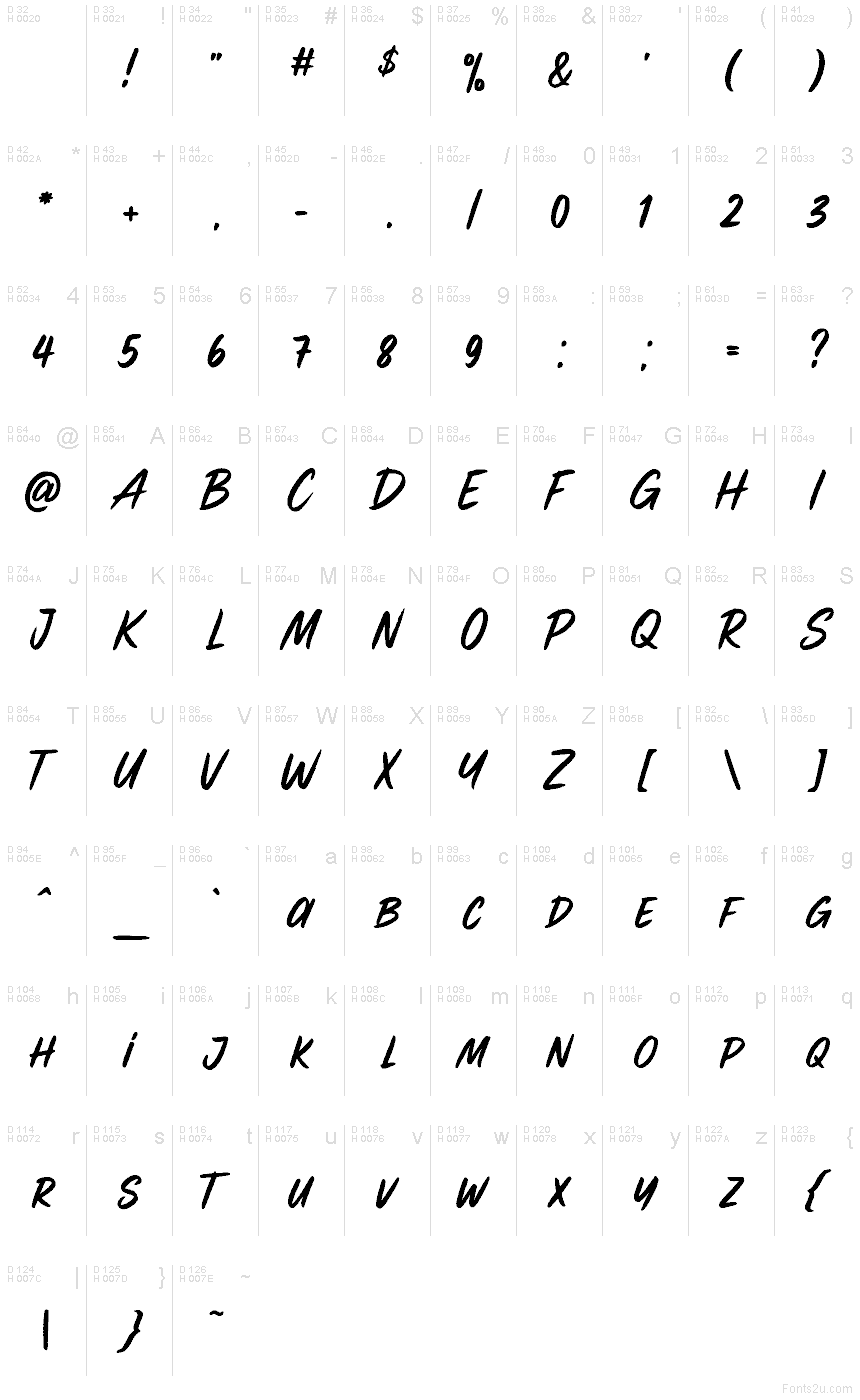
Glamour Magazine
Glamour Magazine font by Cat.B is a brush font that delivers refined elegance and contemporary expressiveness with every character, leaving a stylish and creative impression. It presents an artistic design with a condensed width and smoothly flows for charming visuals. This is achieved while maintaining readability when used in distinct sizes.